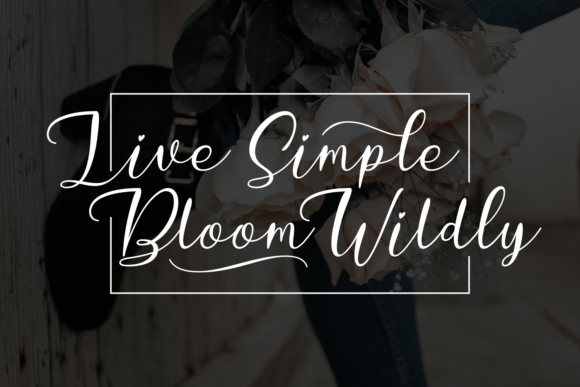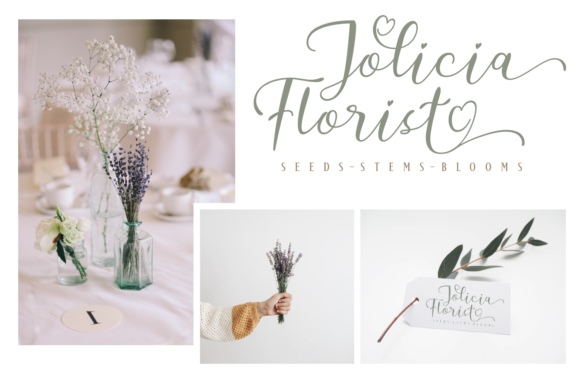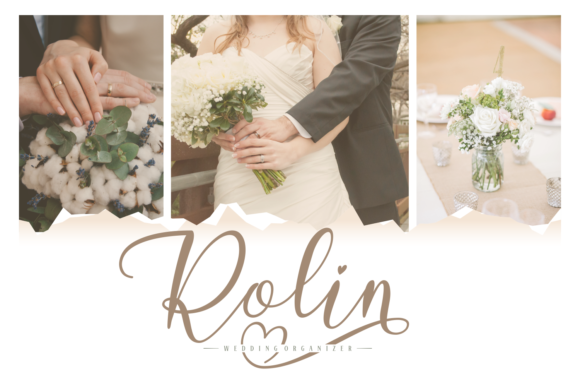
Discover the Charm of Charlotte Hasanah Font: A Romantic Script Font for Your Projects
Are you looking for a font that exudes romance and elegance? Look no further than the Charlotte Hasanah Font. This charming script font is perfect for a variety of projects, from wedding invitations and stationery to branding and packaging. In this article, we’ll dive into the features and benefits of Charlotte Hasanah Font, and explore how you can use it to add a touch of sophistication to your designs.
What is Charlotte Hasanah Font?
Charlotte Hasanah Font is a beautiful script font that is designed to evoke a sense of romance and whimsy. Its flowing lines and delicate curves make it perfect for creating elegant and sophisticated designs. The font is named after its creator, Charlotte Hasanah, a talented designer who has poured her heart and soul into crafting a font that is both stylish and versatile.
Key Features of Charlotte Hasanah Font
So, what makes Charlotte Hasanah Font so special? Here are just a few of its key features:
- Romantic feel: Charlotte Hasanah Font has a distinctly romantic feel that makes it perfect for projects that require a touch of elegance and sophistication.
- Script style: The font features a beautiful script style that is both flowing and delicate.
- Versatile: Charlotte Hasanah Font can be used for a wide range of projects, from wedding invitations and stationery to branding and packaging.
- Easily readable: Despite its ornate style, Charlotte Hasanah Font is easily readable, making it perfect for body text as well as headlines.
How to Use Charlotte Hasanah Font in Your Projects
Charlotte Hasanah Font is a versatile font that can be used in a variety of projects. Here are a few ideas to get you started:
- Wedding invitations and stationery: The romantic feel of Charlotte Hasanah Font makes it perfect for wedding invitations, stationery, and other wedding-related projects.
- Branding and packaging: The font’s elegant and sophisticated style makes it perfect for branding and packaging projects that require a touch of luxury.
- Signage and displays: Charlotte Hasanah Font can be used to create beautiful signage and displays that are sure to grab attention.
- Digital projects: The font can also be used in digital projects, such as social media graphics, email headers, and website designs.
Tips for Getting the Most Out of Charlotte Hasanah Font
Here are a few tips for getting the most out of Charlotte Hasanah Font:
- Use it sparingly: While Charlotte Hasanah Font is beautiful, it can be overwhelming if used too much. Use it sparingly to add a touch of elegance to your designs.
- Pair it with other fonts: Charlotte Hasanah Font pairs well with other fonts, such as sans-serif fonts and serif fonts. Experiment with different pairings to find the one that works best for your project.
- Adjust the size and color: Experiment with different sizes and colors to find the one that works best for your project.
In conclusion, Charlotte Hasanah Font is a charming script font that is perfect for designers and crafters looking to add a touch of romance and elegance to their projects. Its flowing lines and delicate curves make it perfect for creating sophisticated and stylish designs. Whether you’re working on a wedding invitation, branding project, or digital project, Charlotte Hasanah Font is sure to impress. So why not give it a try and see the magic for yourself?